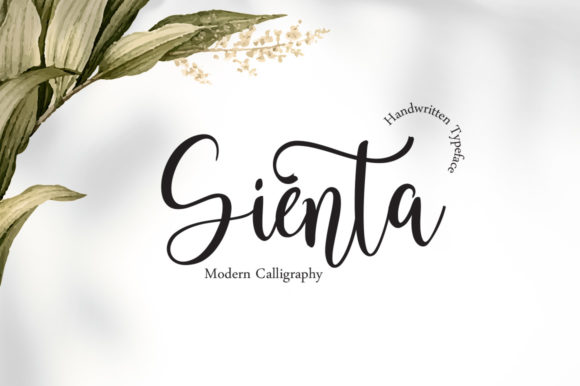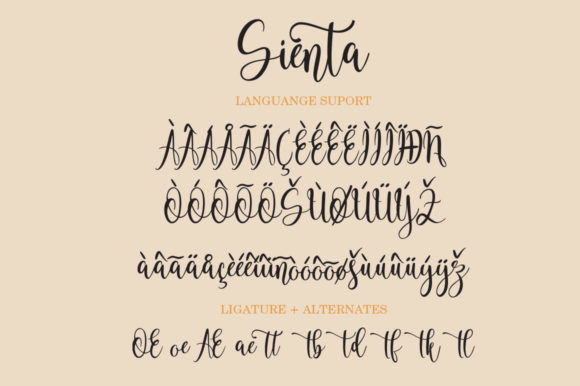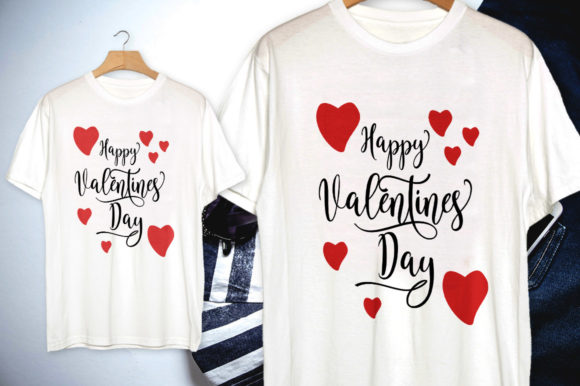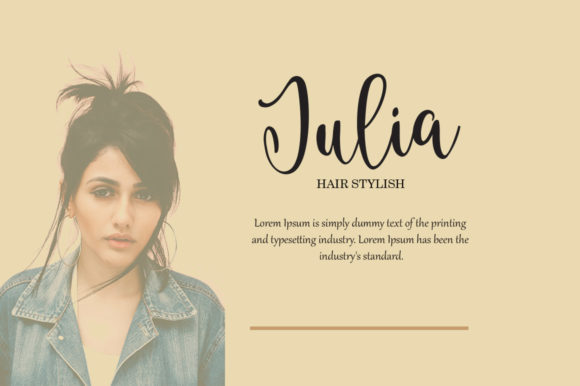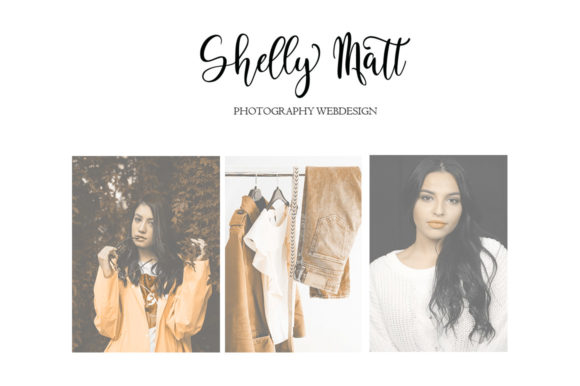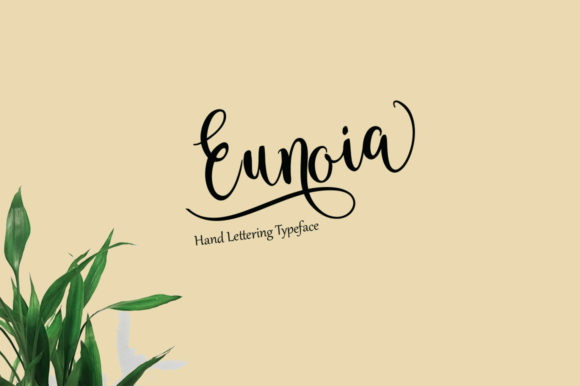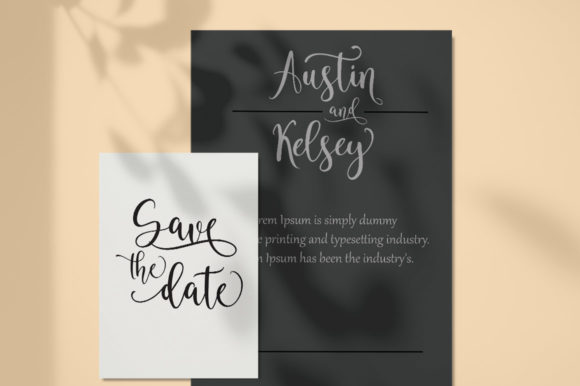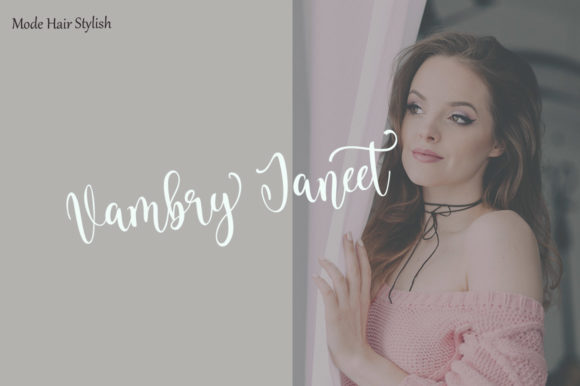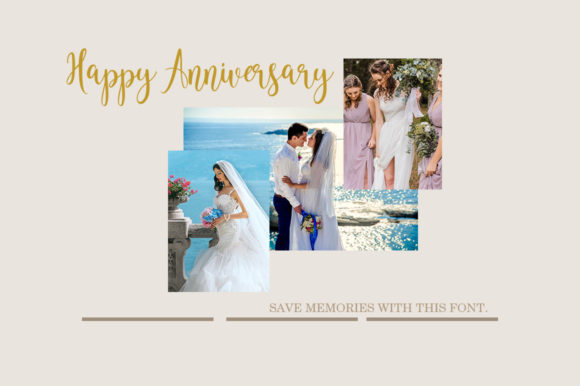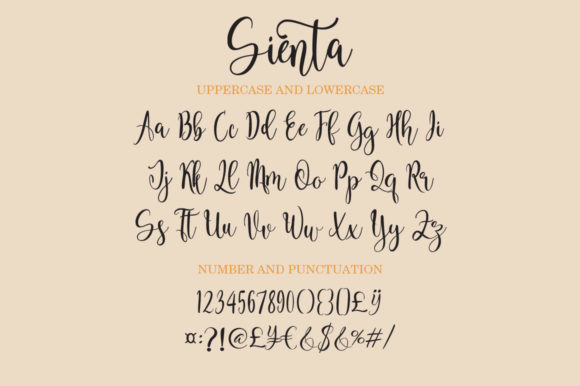
Sienta Font
About Sienta Font
Sienta is a stylish handwritten font which will make your designs stand out with this cute and charming style.
It’s the perfect choice for invitations, post cards, logos and more.